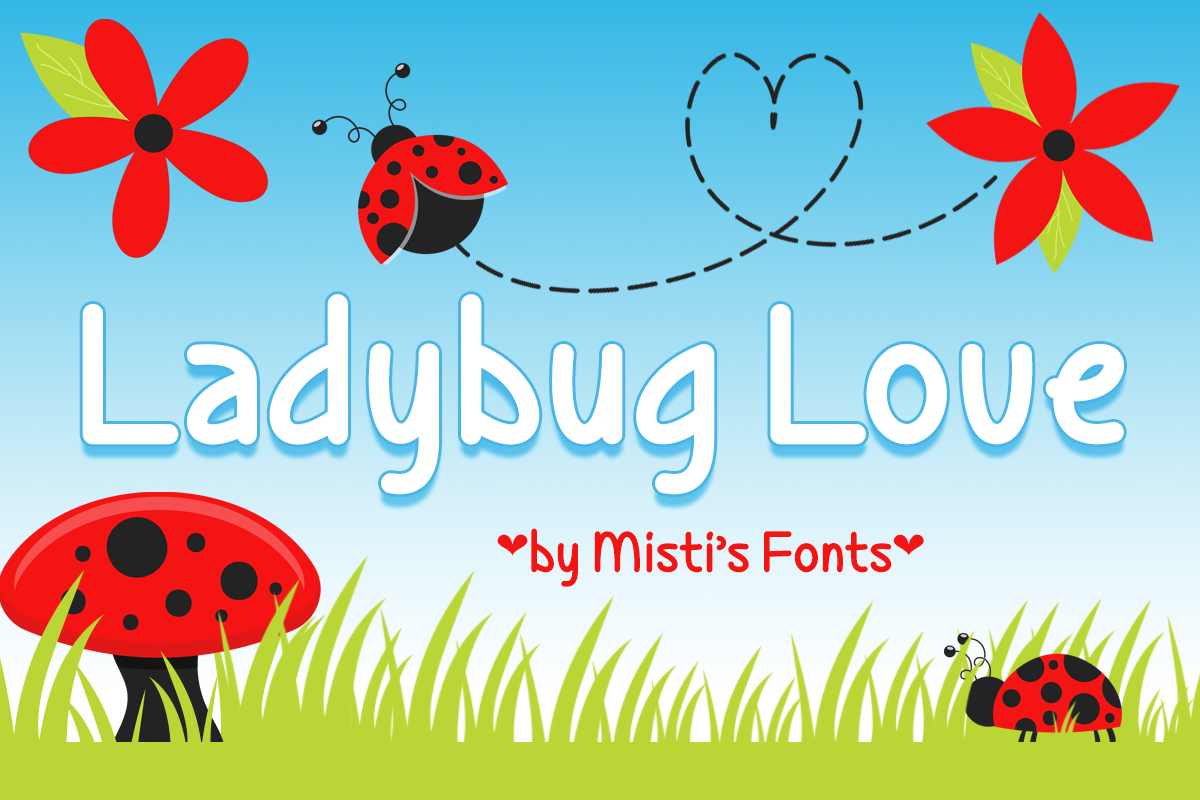
Ladybug Love is cute, yet simple font that is perfect for your design and craft projects! It also includes a cute heart symbol which can be accessed by typing the asterisk key (*)
- 391 glyphs (including uppercase, lowercase, numbers, and punctuation)
- Lots of language support (covers most European languages, Baltic languages, and Turkish) and I can add more language support at request!